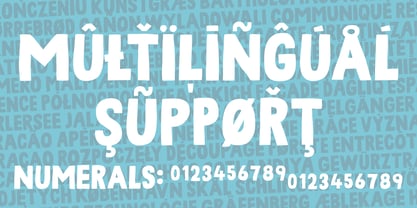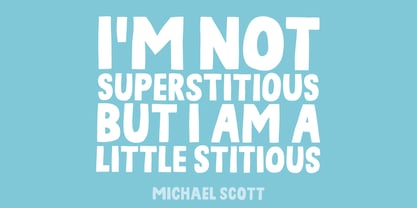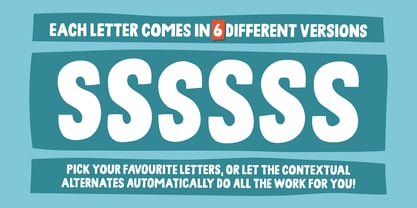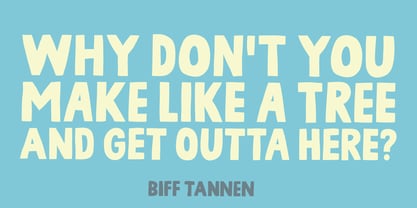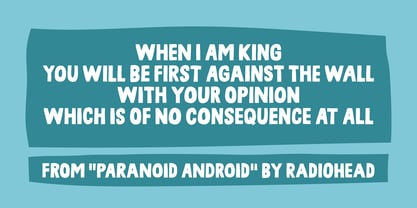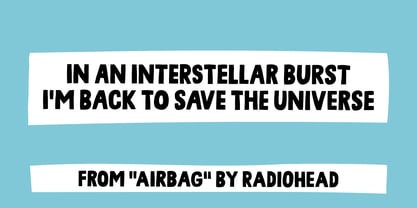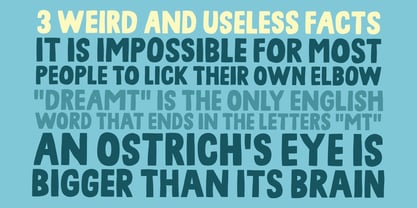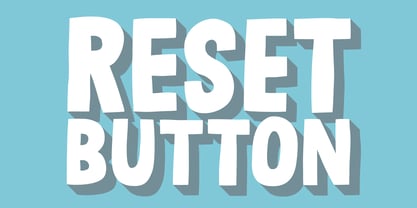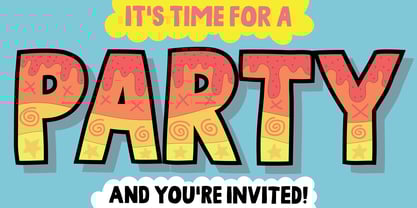
Reset Button
by Bogstav
The Reset Button Font Family was designed by Jakob Fischer and published by Bogstav. Reset Button contains 2 styles and family package options.
Say hello to my handmade ALL-CAPS headline font!
I've made 6 different versions of each letter, making the text even more energetic and organic looking - and you don't have to do anything but type - the Contextual Alternates will do the cycling of letters for you!